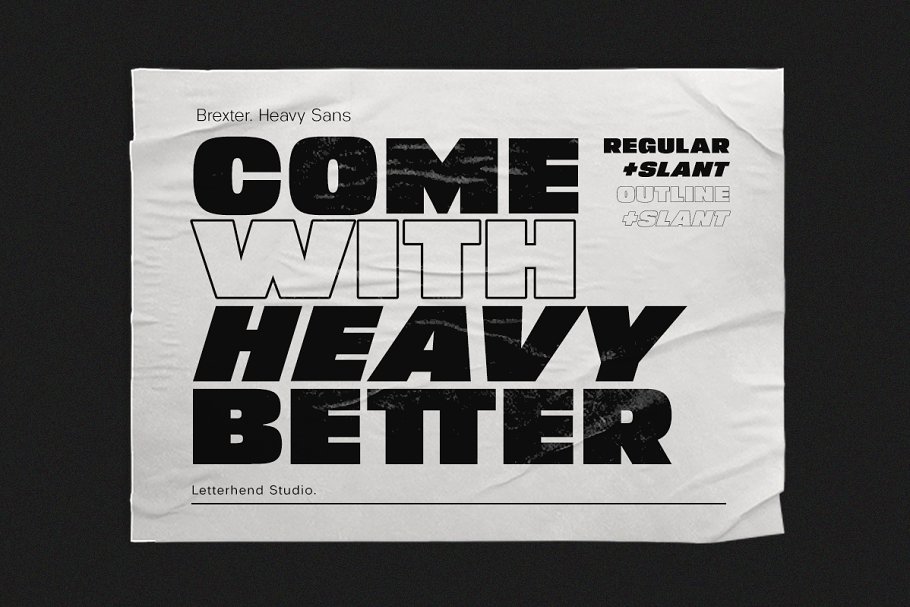
About the Brexter Heavy Sans Serif Font
Brexter is a heavy and bold sans serif font, comes with four styles regular and slant, with outline version as well, If you need a typeface with strong yet easy readability, this is the right choice, This type of font perfectly made to be applied especially in logo, headline, signage and the other various formal forms such as invitations, labels, logos, magazines, books, greeting / wedding cards, packaging, fashion, make up, stationery, novels, labels or any type of advertising purpose